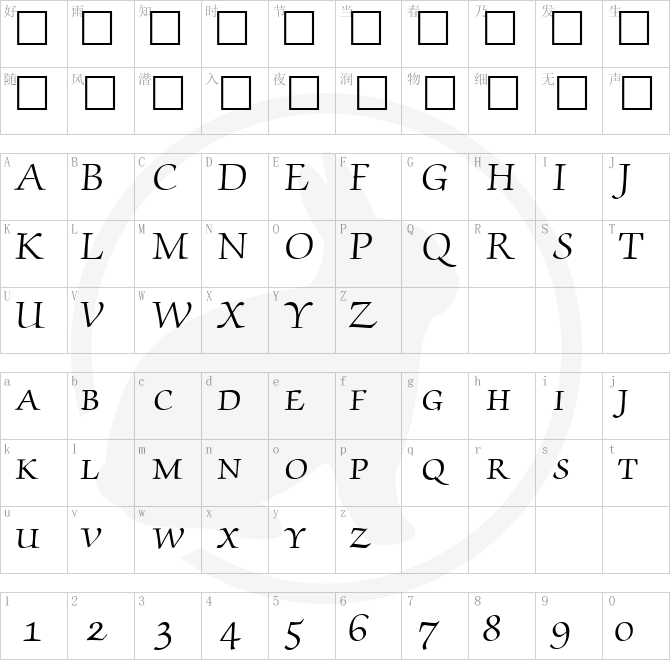
- Font Name:ZabriskieScriptSmc DB
ZabriskieScriptSmc-Regular-DB.ttf is a very beautiful artistic font, ZabriskieScriptSmc-Regular-DB.ttf is widely used in the design and printing of various books and pictures,ZabriskieScriptSmc-Regular-DB.ttf has a strong visual impact,ZabriskieScriptSmc-Regular-DB.ttf is a commonly used font in newspapers, magazines and books, and is used in posters, e-commerce Poster design, store design, logo design, font design and other fields.ZabriskieScriptSmc-Regular-DB.